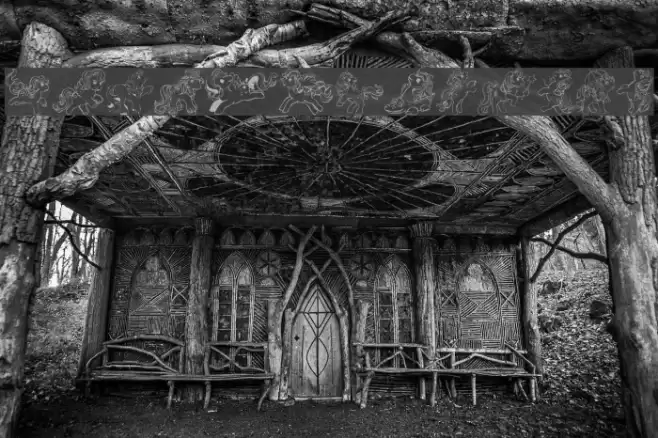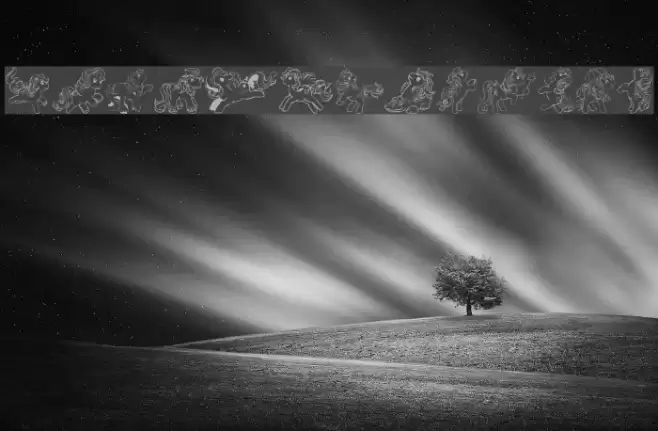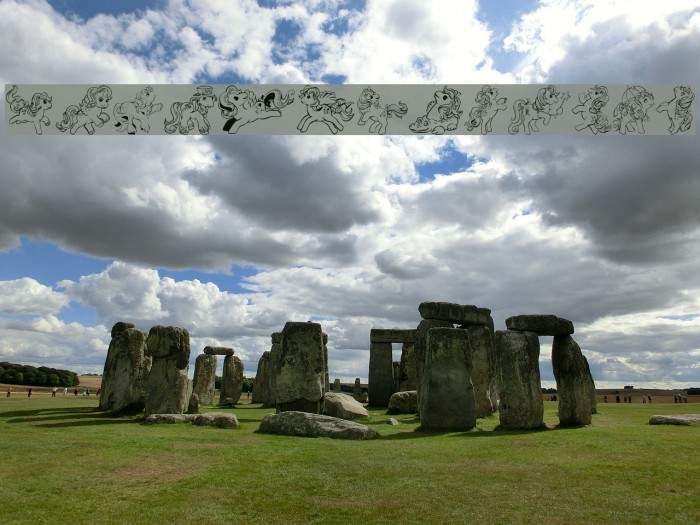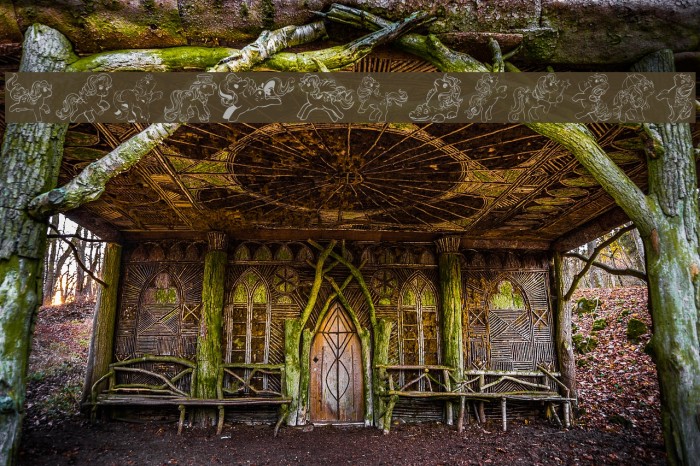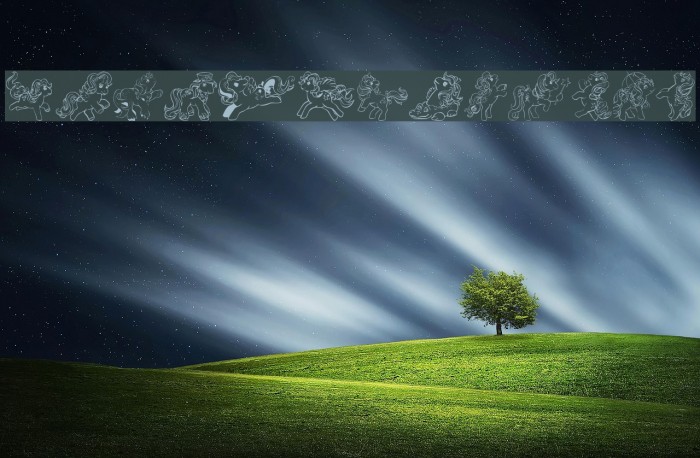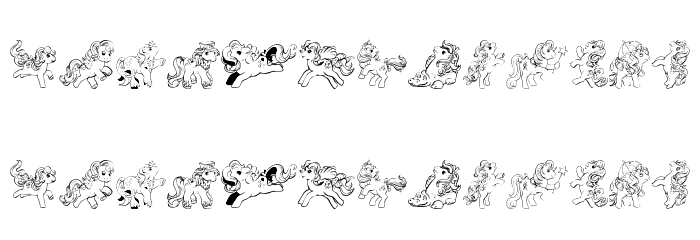
LMS Pretty Pony Ding Regulaar Font
LMS Pretty Pony Ding Regulaar Description
This font is a playful and whimsical collection of dingbats featuring charming pony illustrations. Each character is represented by a unique pony in various poses and expressions, capturing a sense of fun and fantasy. The designs are detailed, with flowing manes and expressive features, making them ideal for projects that require a touch of magic and imagination. The ponies are depicted in a cartoonish style, which adds to their appeal for children's projects or playful themes.
A whimsical dingbat font featuring charming pony illustrations in various playful poses from Uncategorized fonts.
- Proposed Projects: Ideal for children's books, party invitations, playful branding, and any project requiring a touch of fantasy and whimsy.
- Overall Style: Playful and Whimsical
- Use Case: Decorative elements, Children's materials, Invitations